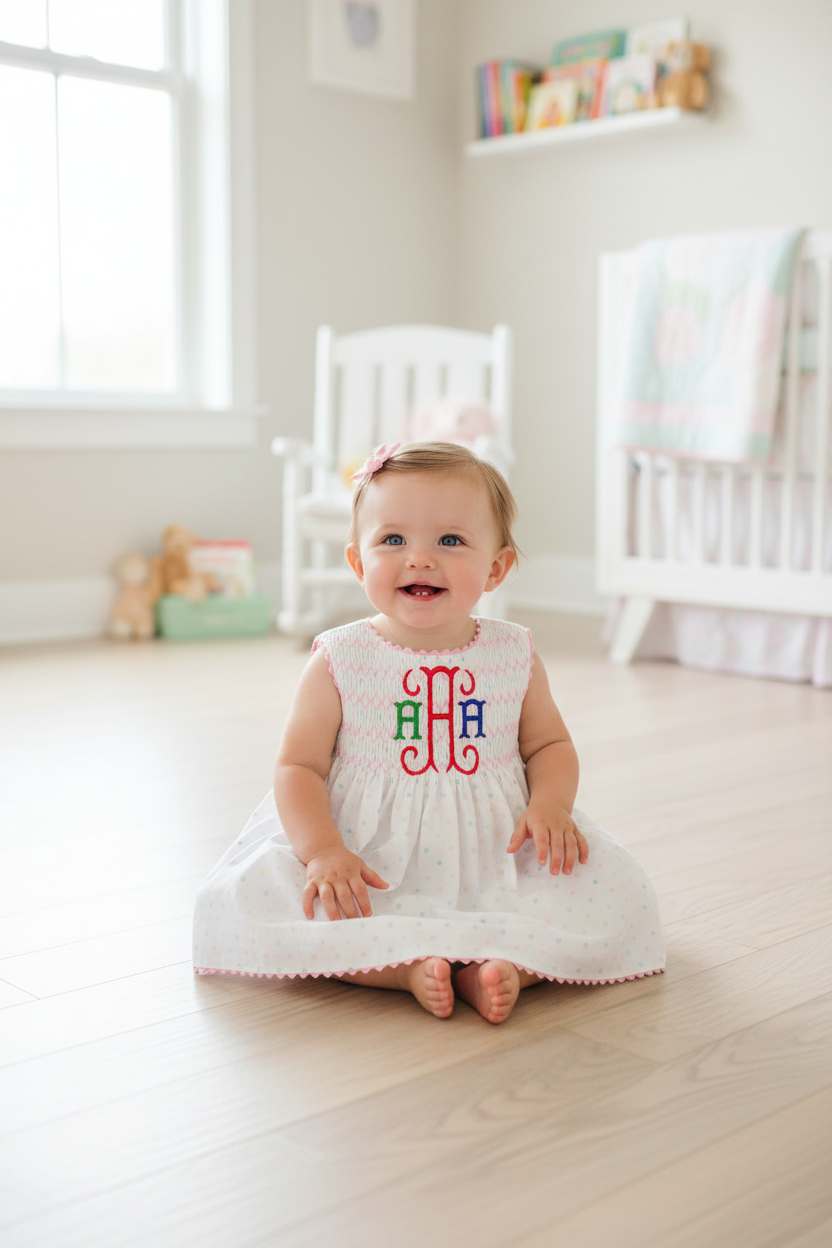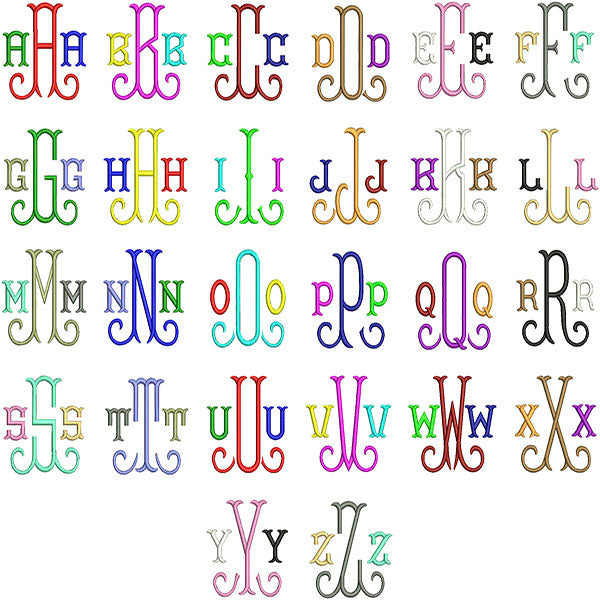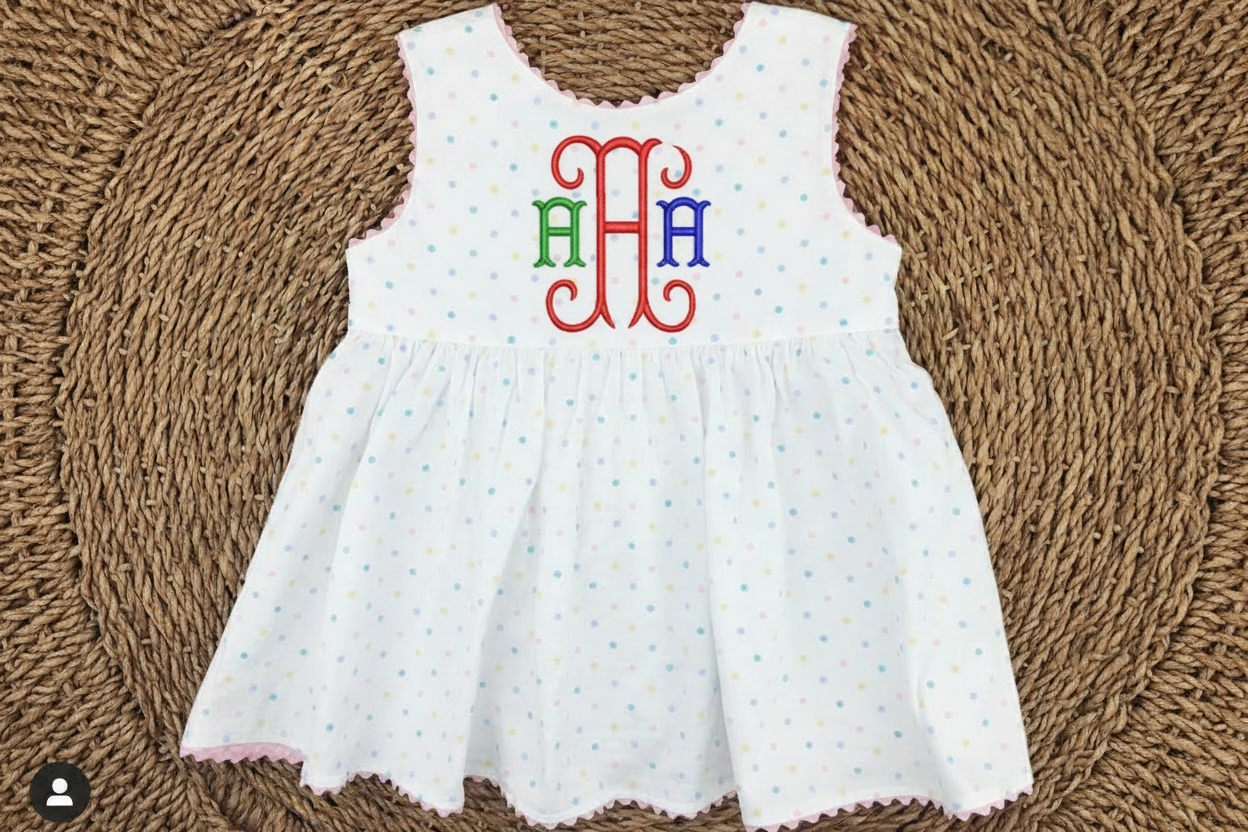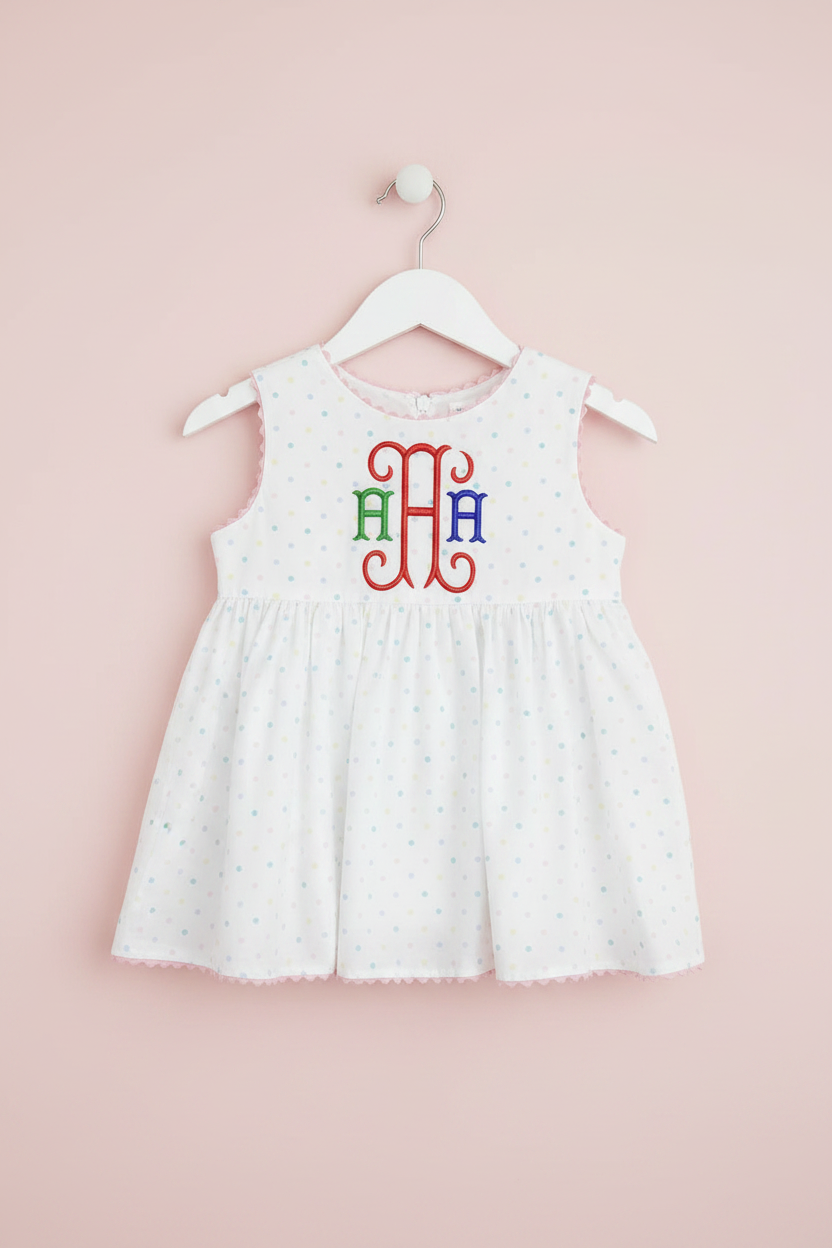
Beautiful monogram embroidery font perfect for personalizing baby girl dresses, clothing, and accessories. The Lauren font features elegant decorative swirls and serifs with a classic interlocking style.
- 2 inch size – ideal for small items like onesies, bibs, and pockets
- 3 inch size – perfect for dresses, shirts, and larger garments